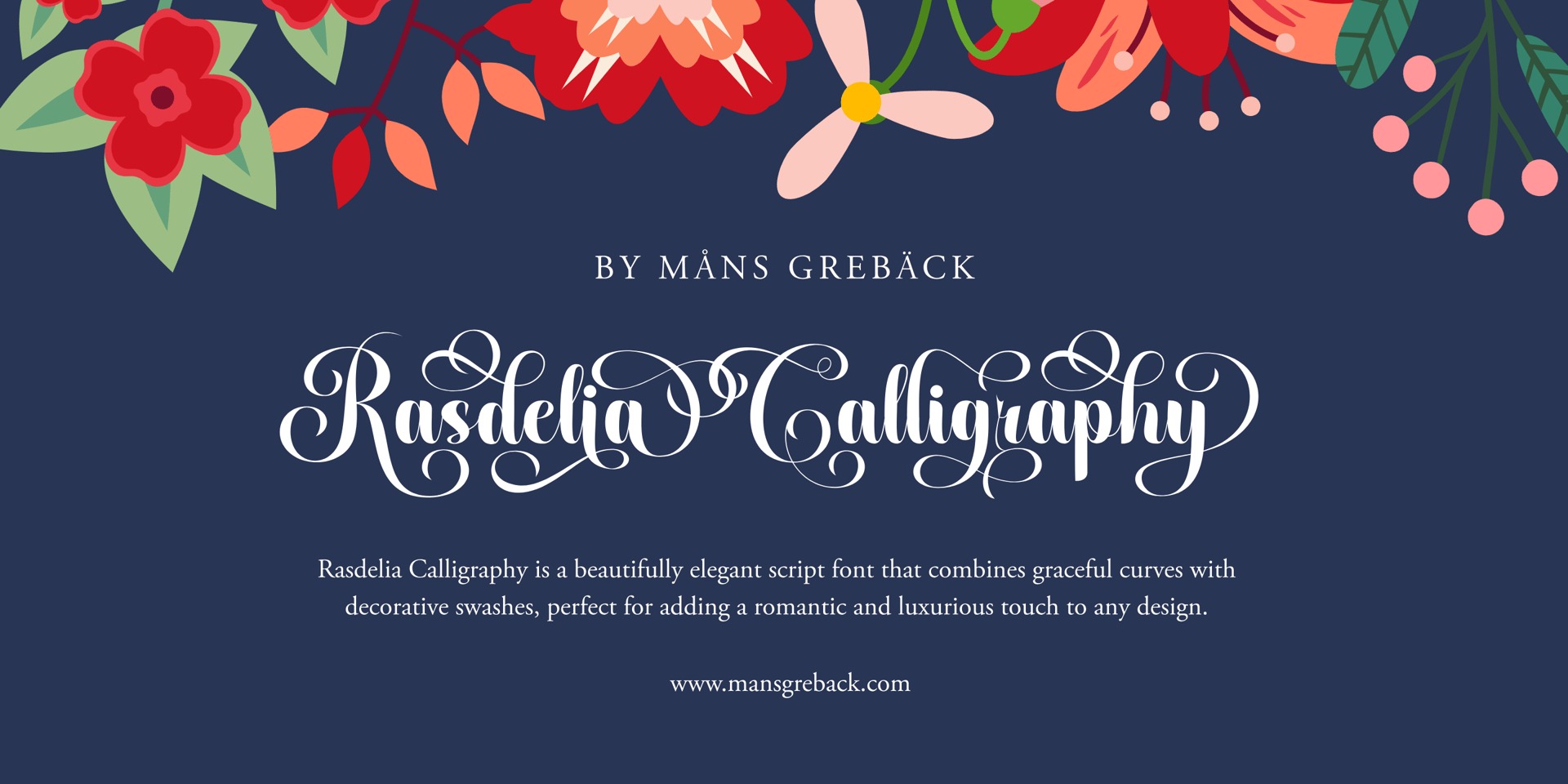
Rasdelia Calligraphy – Elegant Script Font
Rasdelia Calligraphy – Elegant Script Font is a distinctive and expressive font crafted to bring personality, structure, and creative energy into your projects. Rasdelia Calligraphy is a bold script typeface with high-contrast curves and extravagant swashes. Designed with precision and flair, it merges classic calligraphy with modern typography, balancing delicacy with power.
With thick downstrokes and elegant upswings, each letter flows into the next with rhythmic grace. The uppercase set is adorned with ornate loops, while the lowercase remains confident and smooth, making the design feel at once traditional and forward-looking. Ideal for creating a grand signature or a headline that speaks with unmistakable character.
The font is built with advanced OpenType functionality and guaranteed top-notch quality, containing stylistic and contextual alternates, ligatures and more automatic and manual features; all to give you full control and customizability.
It has extensive lingual support, covering all Latin-based languages, from North Europa to South Africa, from America to South-East Asia. It contains all characters and symbols you’ll ever need, including all punctuation and numbers.